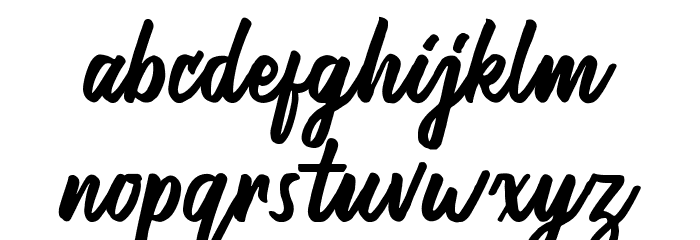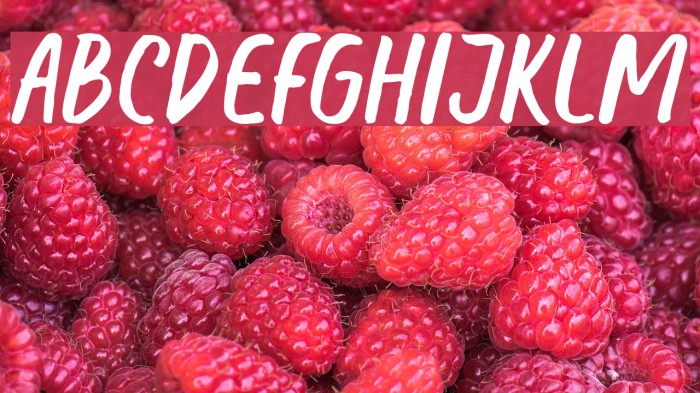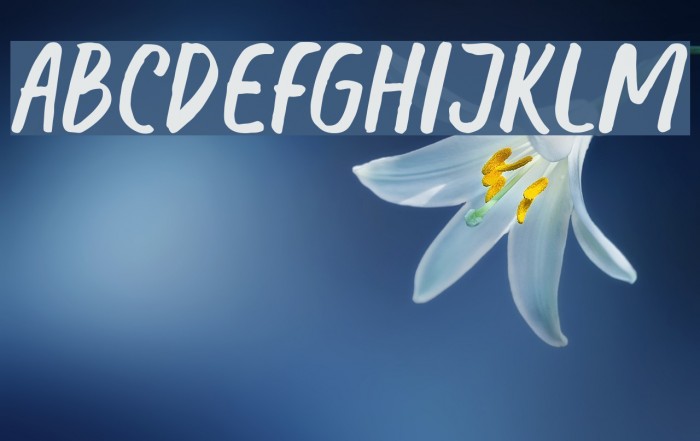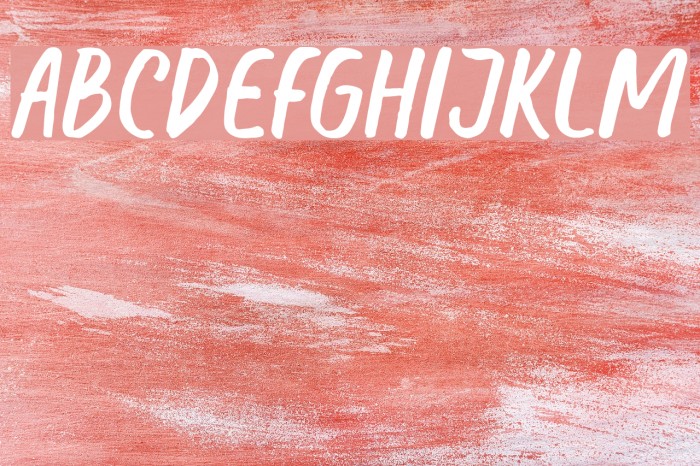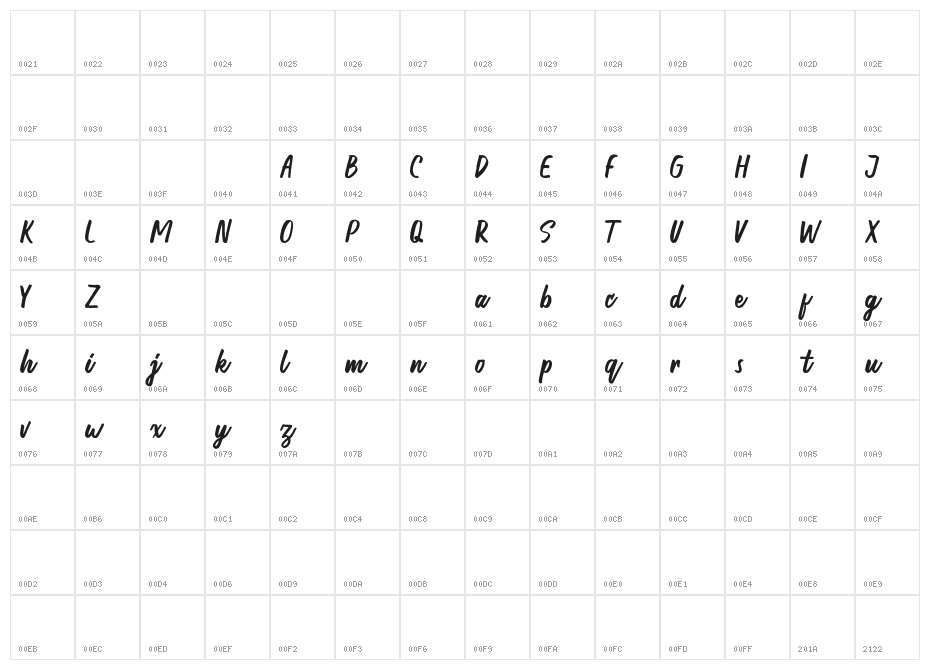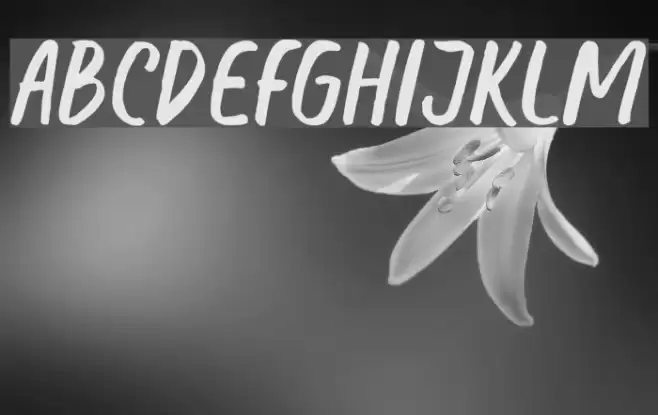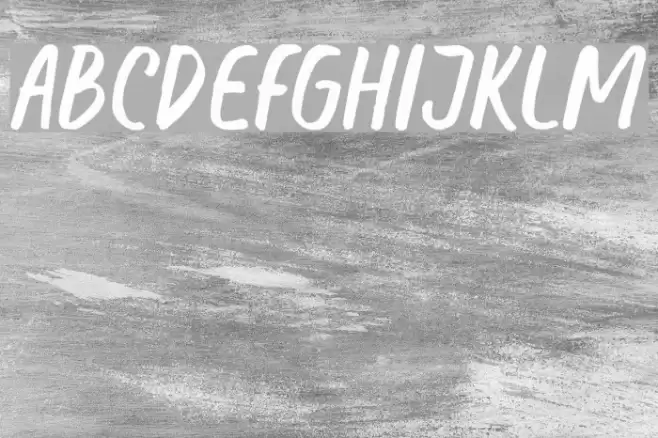
Honest Font
This font features a bold and dynamic script style with a handwritten appearance. The uppercase letters are slightly slanted, giving a sense of movement and fluidity. The lowercase letters maintain a consistent flow, enhancing the casual and approachable feel. The strokes are thick and rounded, contributing to its bold presence. This font is versatile, suitable for creating eye-catching designs that require a personal touch. Its playful yet elegant style makes it ideal for various creative projects.
A bold, dynamic script font with a handwritten, fluid style.
- Proposed Projects: Ideal for branding, invitations, greeting cards, and social media graphics.
- Category: Script
- Use Case: Logos, Headlines, Invitations